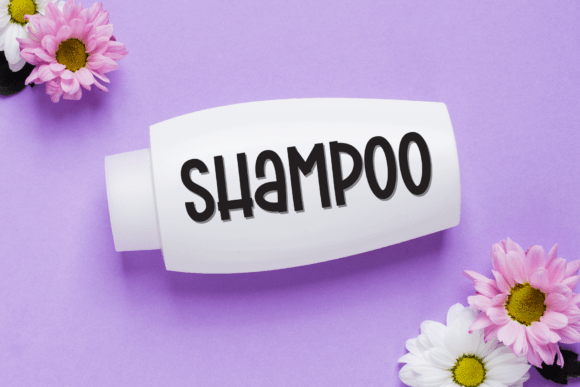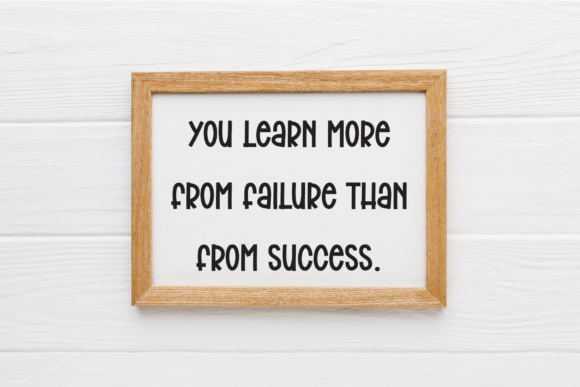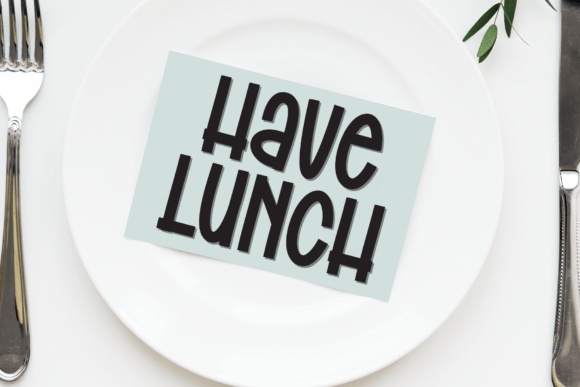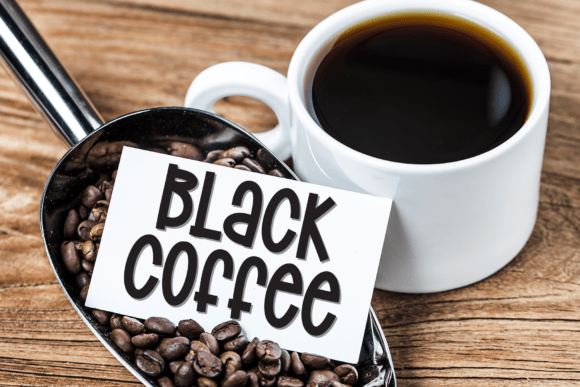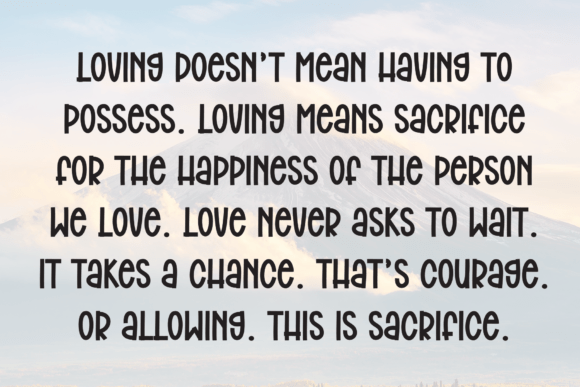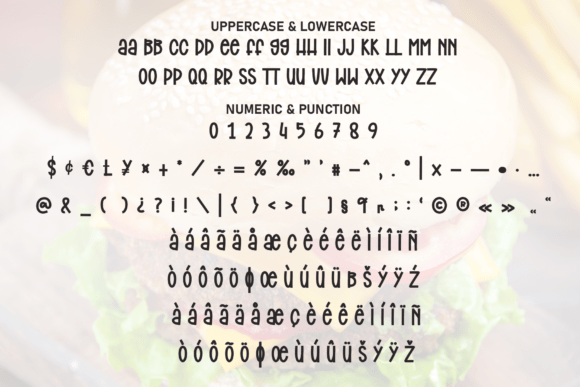
Hamburger Font: The Perfect Blend of Clarity and Casual Style
In the world of typography, finding the right font can make all the difference in the success of a design project. For designers and crafters looking for a font that exudes a modern yet laid-back vibe, Hamburger Font is an excellent choice. This neat and casual display font has gained popularity for its unique ability to blend clarity with a relaxed, approachable feel, making it perfect for a wide range of applications.
Clean Lines and Friendly Letterforms
One of the standout features of Hamburger Font is its clean lines and friendly letterforms. The font’s design is characterized by simple, uncomplicated shapes that make it easy to read and understand. This clarity is essential for headlines, posters, packaging, and branding, where the message needs to be conveyed quickly and effectively. The clean lines also give the font a modern feel, making it suitable for designs that require a contemporary look.
At the same time, the friendly letterforms add a touch of approachability to the font. The rounded edges and smooth curves create a welcoming and inviting feel, making the font perfect for designs that aim to connect with the audience on a personal level. Whether you’re designing a logo, brochure, or website, Hamburger Font’s friendly letterforms will help you create a positive and engaging visual experience.
Balanced Structure and Playful Energy
Another key feature of Hamburger Font is its balanced structure and playful energy. The font has a well-proportioned design, with each letterform carefully crafted to create a sense of harmony and stability. This balance makes the font easy to read and understand, even at smaller sizes.
At the same time, the font has a playful energy that adds personality to any design. The slightly rounded edges and smooth curves give the font a dynamic feel, making it perfect for designs that require a touch of whimsy and creativity. Whether you’re designing a children’s book, a toy package, or a playful advertisement, Hamburger Font’s playful energy will help you create a fun and engaging visual experience.
Ideal for Designs that Call for Both Style and Readability
Hamburger Font is ideal for designs that require both style and readability. The font’s clean lines, friendly letterforms, and balanced structure make it perfect for a wide range of applications, from headlines and posters to packaging and branding.
For designers and crafters, Hamburger Font offers a versatile solution that can be used in various design projects. Whether you’re working on a logo, brochure, website, or social media graphics, this font is sure to deliver a professional and visually appealing result. The font’s modern yet laid-back vibe makes it perfect for designs that require a fresh and contemporary look.
Real-World Applications of Hamburger Font
So, what are some real-world applications of Hamburger Font? Here are a few examples:
- Headlines and Posters: Hamburger Font is perfect for headlines and posters that require a bold and attention-grabbing font. Its clean lines and friendly letterforms make it easy to read and understand, even at larger sizes.
- Packaging and Branding: The font’s modern yet laid-back vibe makes it perfect for packaging and branding designs that require a fresh and contemporary look. Whether you’re designing a product label, packaging, or brand identity, Hamburger Font is an excellent choice.
- Digital Media: Hamburger Font is also suitable for digital media, including websites, social media graphics, and email marketing campaigns. Its clean lines and friendly letterforms make it easy to read on various devices and screen sizes.
In conclusion, Hamburger Font is a versatile and stylish display font that offers a unique blend of clarity and casual style. Its clean lines, friendly letterforms, and balanced structure make it perfect for a wide range of design applications, from headlines and posters to packaging and branding. Whether you’re a designer or crafter, Hamburger Font is an excellent choice for designs that require both style and readability.
With its modern yet laid-back vibe, Hamburger Font is sure to bring personality and visual appeal to any design project. So why not give it a try and see how it can elevate your designs to the next level?